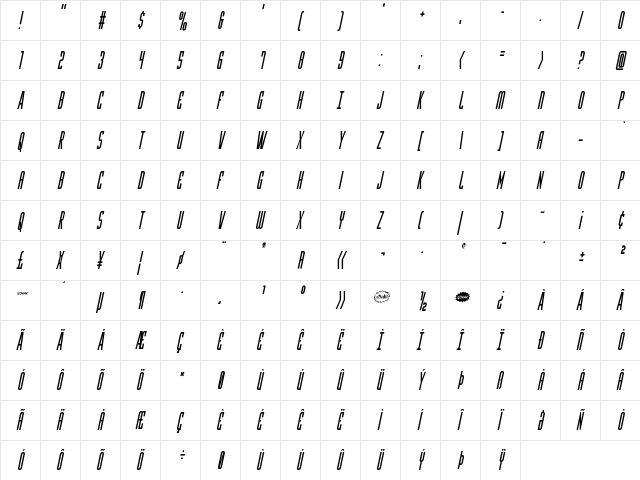
Y-Files Condensed Italic Font Preview
Design Context for Y-Files Condensed Italic Typeface
Y-Files Condensed Italic offers clean, dependable letterforms without strong stylistic allegiance, making it a practical choice for designers who need flexibility. Its italic angle brings a sense of urgency and motion to the letterforms. The condensed width makes it efficient for tight spaces without sacrificing legibility.
Pro Tip: Use Y-Files Condensed Italic for emphasis, pull quotes, and subheadings where its slanted energy can add rhythm to the layout.